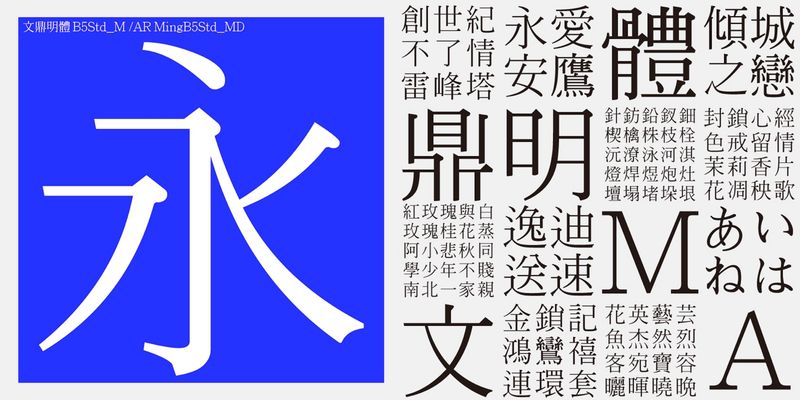
The design sample of AR Mingti font family is from Mincho fonts to satisfy Taiwan and China market’s needs. With the features of larger counter, rounded-head strokes and simple line design concept, AR Mingti suits for long article edition for text of books, newspapers and magazines.